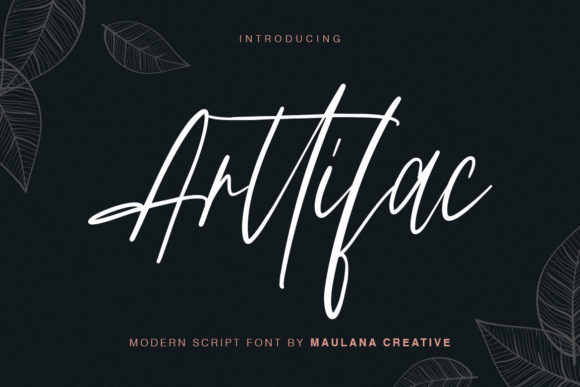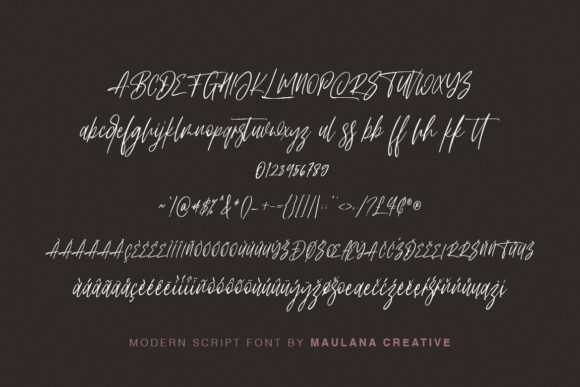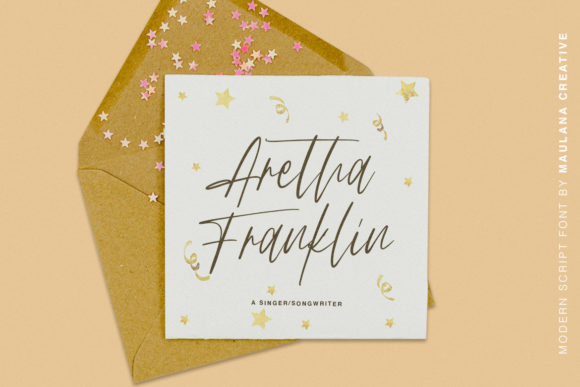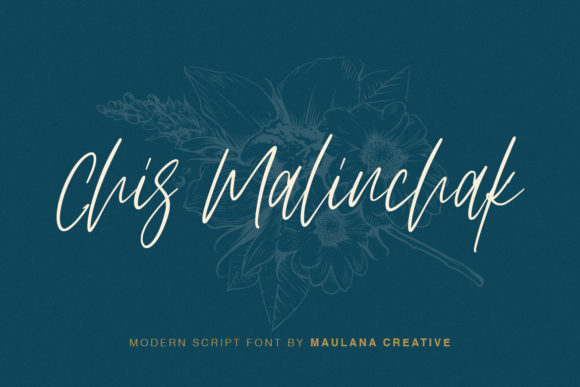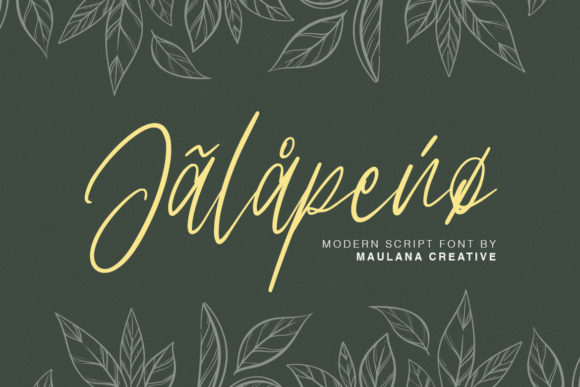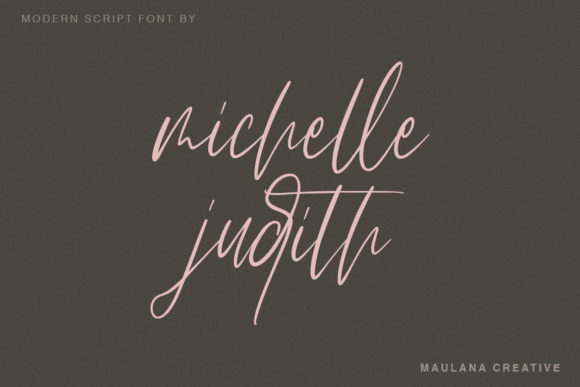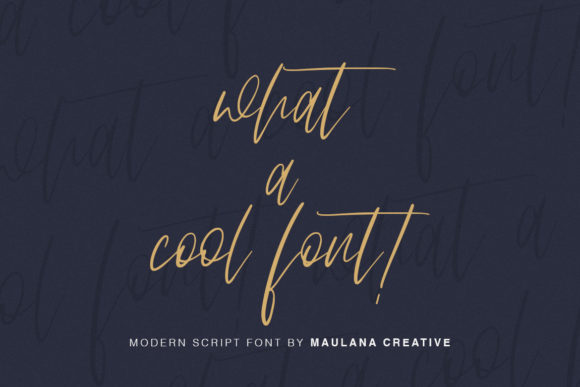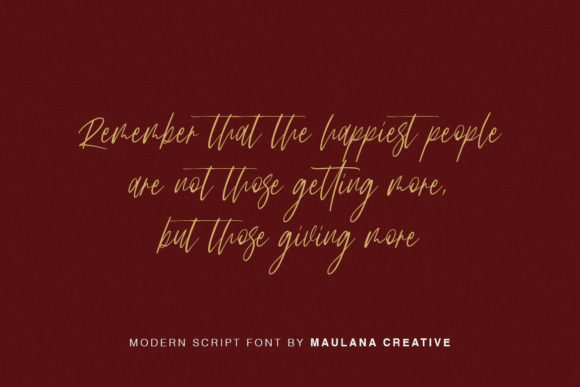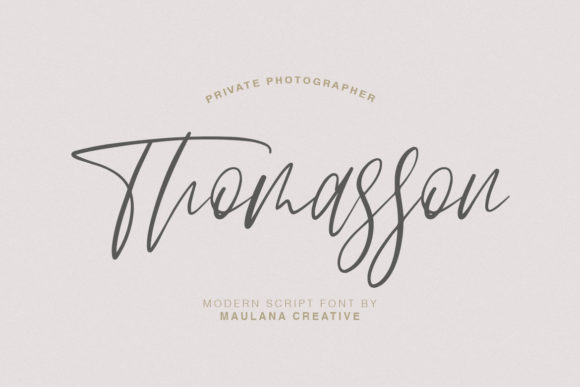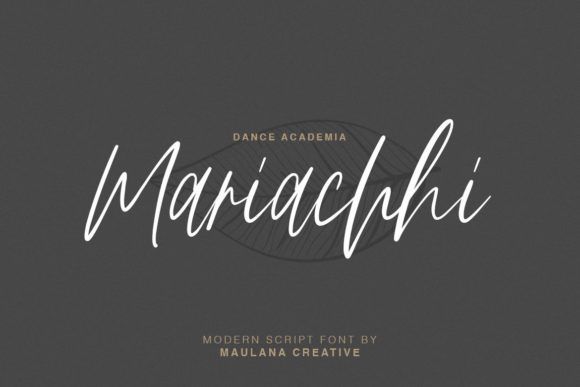
Arttifac Font
About Arttifac Font
Arttifac is the ideal script to give your designs that authentic, handcrafted feel. With its gorgeous signature style, it delivers an incredibly bold and charming font experience!